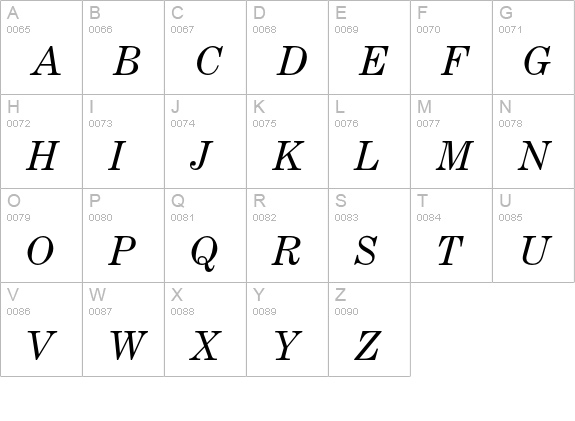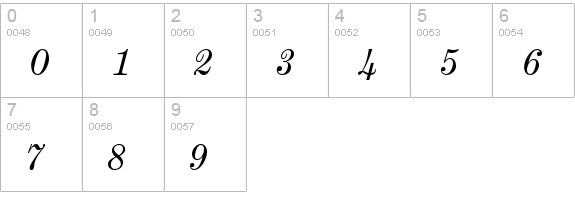
Century Expanded Italic Font Details
Century Expanded Italic is a distinctive, extended-width, italic variant in the Century typeface family \xE2\x80\x94 well suited to design and typography projects.
Century Expanded Italic is a beautifully crafted font that exudes elegance and sophistication. Its slanted and gracefully flowing characters add a touch of flair to any design project. The italicized style of Century Expanded enhances readability and brings a sense of modernity to any text. This font is perfect for creating eye-catching headlines, stylish logos, and elegant invitations. Whether you're working on a professional presentation or a creative project, Century Expanded Italic will surely elevate your design to the next level. And the best part is that Century Expanded Italic is free to download at FontsMarket.com. So go ahead and add this exquisite font to your collection today for all your design needs!